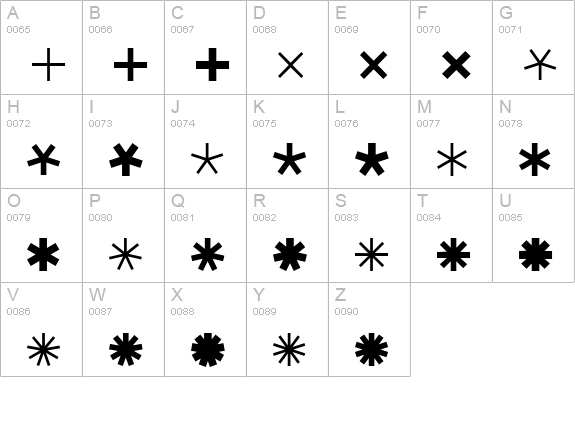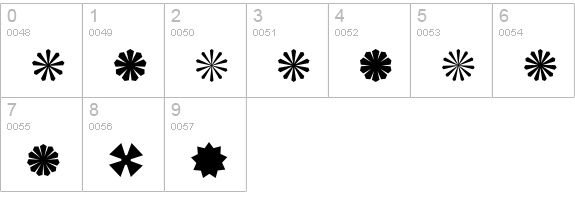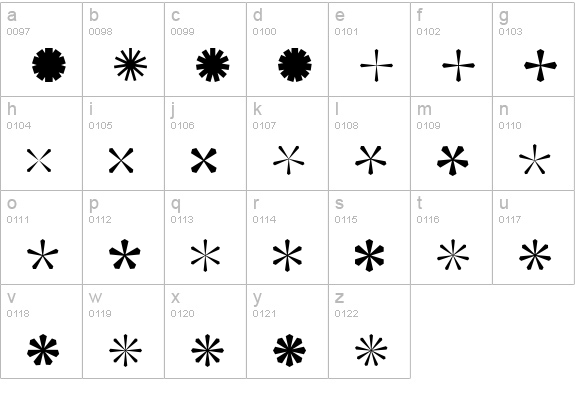
Introducing Asterisp Beta font - a stunning typeface that combines elegance with modernity. With its sleek lines and stylish curves, Asterisp Beta exudes sophistication and versatility, making it perfect for a wide range of design projects. Whether you're creating a logo, website, or print materials, this font is sure to make a lasting impression. The best part? Asterisp Beta is completely free to download at FontsMarket.com. Yes, you read that right - you can get your hands on this gorgeous font without spending a penny. So why wait? Elevate your designs with Asterisp Beta today and let your creativity shine!